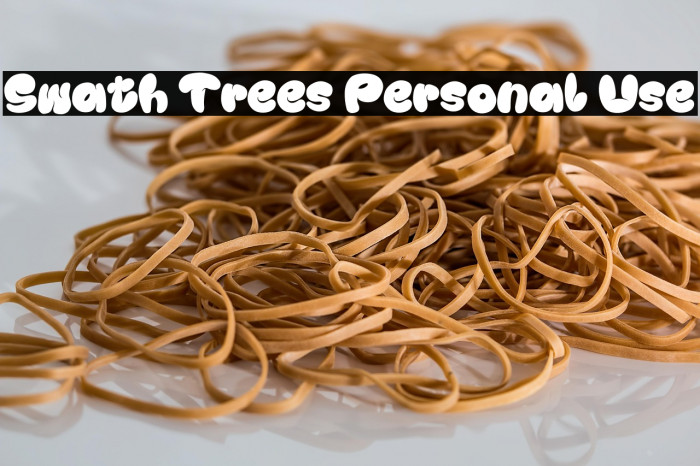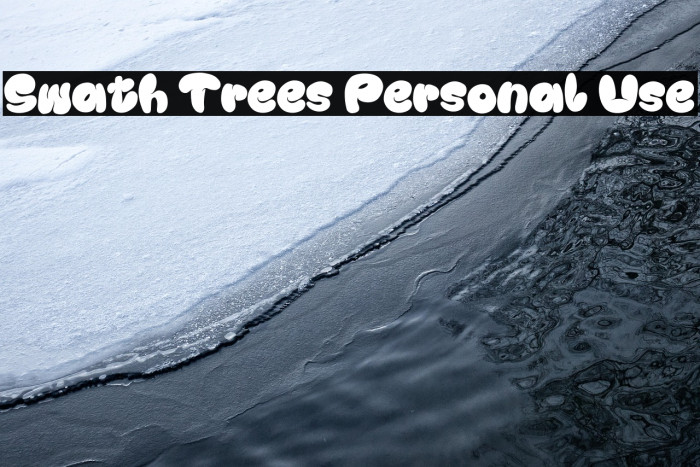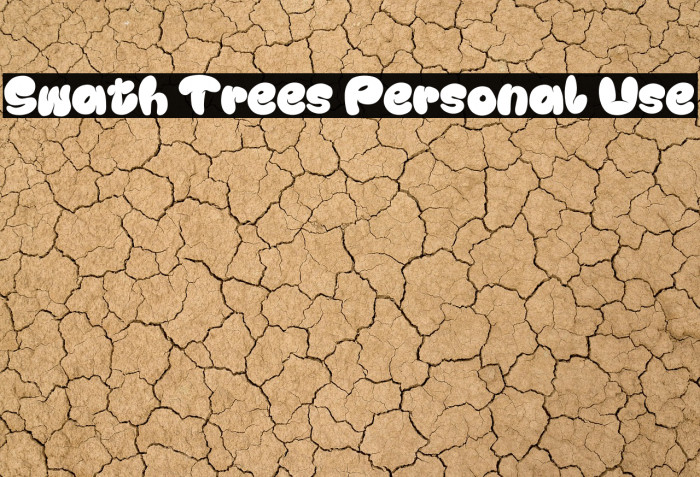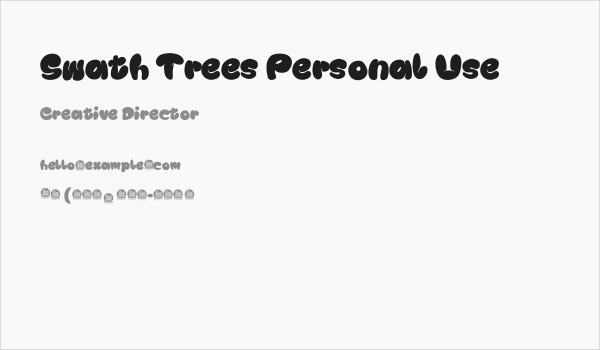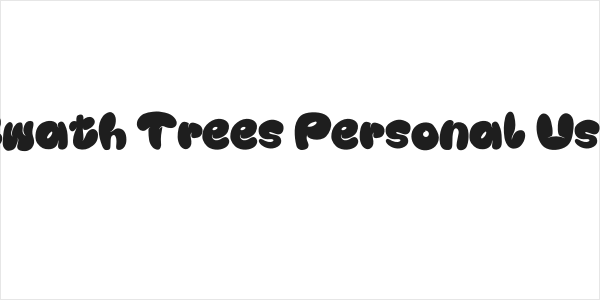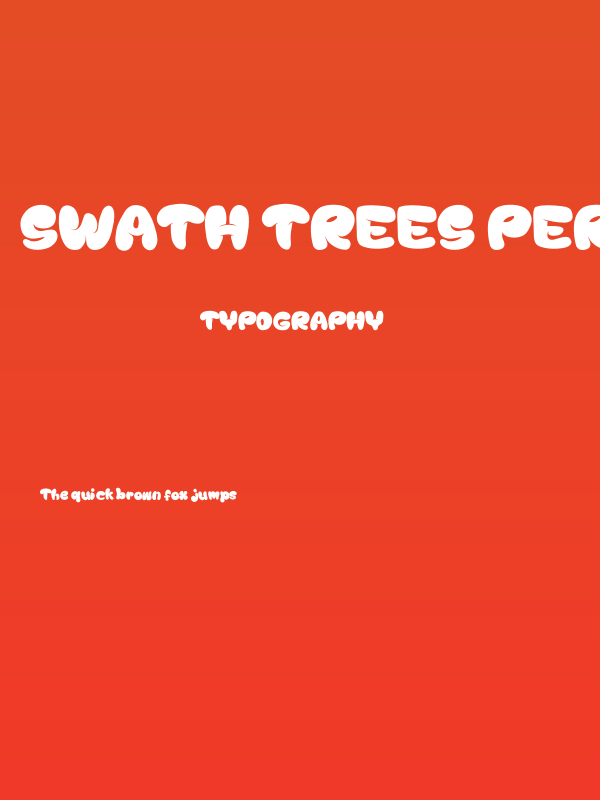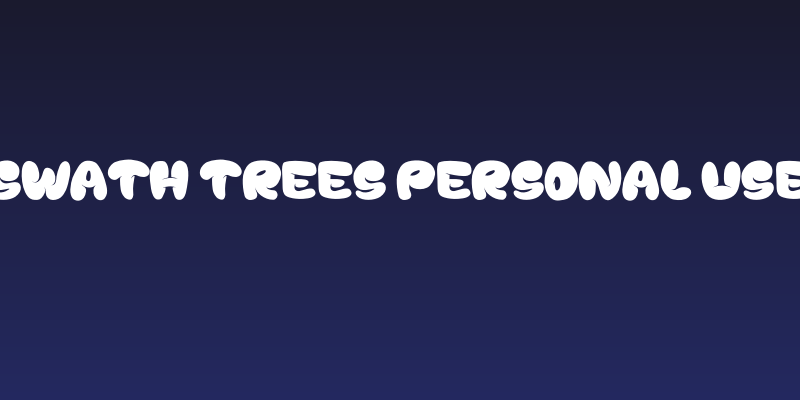
Swath Trees Personal Use Font
Swath Trees Personal Use Description
This playful and bold font features rounded, bubble-like characters that convey a sense of fun and whimsy. The letters are thick and have a soft, organic feel, reminiscent of cartoon or comic styles. The font maintains a consistent weight throughout, giving it a cohesive and uniform appearance. Its unique style makes it stand out, with each character having a slightly exaggerated form that adds to its charm. The font is highly legible despite its decorative nature, making it suitable for various creative applications. The overall design is modern yet playful, making it ideal for projects that require a touch of personality and flair.
| Overall Style | Playful, Modern |
| Proposed Projects | Ideal for children's books, playful branding, party invitations, and social media graphics. |